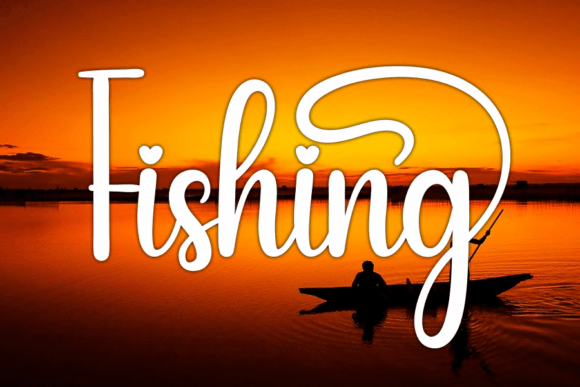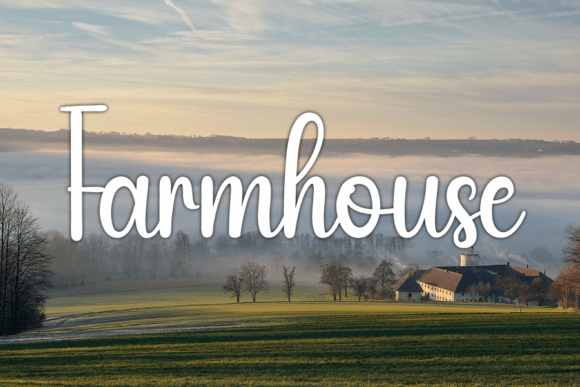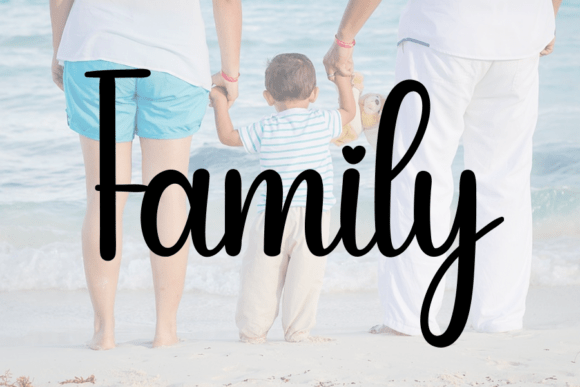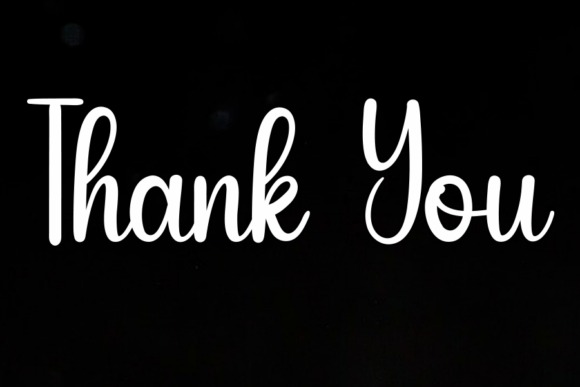
Bulking Font: The Simple Handwritten Font for Your Creative Projects
Are you looking for a font that can add a simple and natural feel to your next project? Look no further than Bulking Font! This versatile handwritten font is perfect for a wide range of applications, from greeting cards to headlines, and is sure to become a staple in your design toolkit.
What is Bulking Font?
Bulking Font is a simple handwritten font that is designed to be easy to read and versatile. Its natural, flowing lines make it perfect for adding a personal touch to your designs. Whether you’re creating a greeting card, a poster, or a headline, Bulking Font is the perfect choice.
Key Features of Bulking Font
• Simple and Handwritten: Bulking Font has a simple, handwritten feel that makes it perfect for adding a personal touch to your designs.
• Versatile: This font is versatile and can be used for a wide range of applications, from greeting cards to headlines.
• Natural Feel: Bulking Font has a natural, flowing feel that makes it perfect for adding a simple and natural touch to your designs.
• Easy to Read: This font is designed to be easy to read, making it perfect for body text and headlines.
Uses for Bulking Font
Bulking Font is perfect for a wide range of creative projects, including:
• Greeting Cards: Add a personal touch to your greeting cards with Bulking Font.
• Posters: Use Bulking Font to create eye-catching posters that grab attention.
• Headlines: Add a simple and natural feel to your headlines with Bulking Font.
• Branding: Use Bulking Font to create a consistent brand identity across all your marketing materials.
• Crafting: Bulking Font is perfect for crafters who want to add a personal touch to their projects.
Why Choose Bulking Font?
There are many fonts to choose from, but Bulking Font stands out for its simplicity, versatility, and natural feel. Here are just a few reasons why you should choose Bulking Font for your next project:
• Unique Look: Bulking Font has a unique, handwritten look that sets it apart from other fonts.
• High-Quality: Bulking Font is a high-quality font that is designed to produce crisp, clear text.
Tips for Using Bulking Font
Here are a few tips for using Bulking Font in your designs:
• Use it for Headlines: Bulking Font is perfect for headlines, where its simple and natural feel can really make an impact.
• Pair it with Other Fonts: Experiment with pairing Bulking Font with other fonts to create a unique look.
• Use it for Body Text: Bulking Font is also suitable for body text, where its easy-to-read design makes it perfect for longer blocks of text.
Bulking Font is a simple handwritten font that is perfect for adding a natural and simple feel to your designs. Its versatility, ease of use, and high-quality design make it a great choice for a wide range of creative projects. Whether you’re a designer, crafter, or just looking for a font for your next project, Bulking Font is definitely worth checking out.